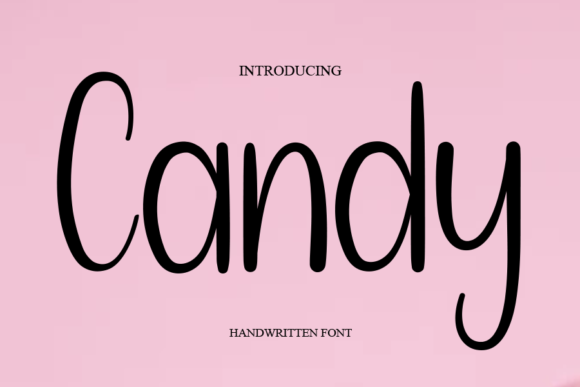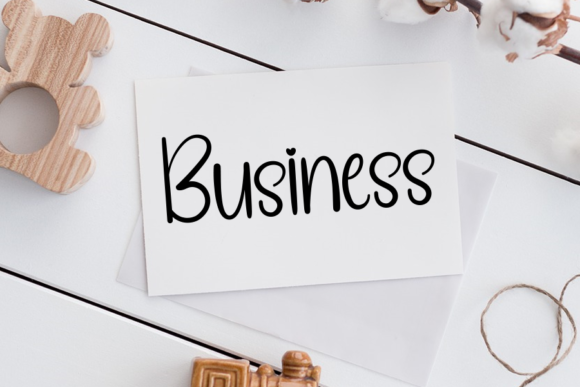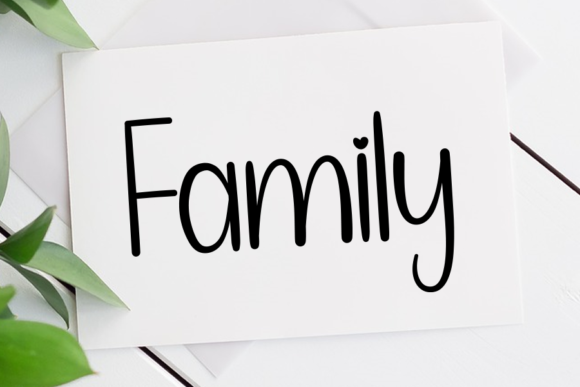
About Candy Font
Candy is a relaxed handwritten font that effortlessly blends a modern and whimsical style. This font is designed to immerse your designs into a fun and cool world, injecting a sense of playfulness and contemporary charm.
The relaxed nature of Candy is reflected in its handwritten style, which adds a personal and approachable touch to your designs. The modern elements seamlessly coexist with whimsical details, creating a unique and eye-catching aesthetic.
Use Candy to infuse your projects with a fun and cool vibe. Whether you’re working on social media graphics, branding, product packaging, or any design that requires a touch of modern whimsy, this font adds a playful element that engages and captivates your audience.
The versatility of Candy makes it suitable for a wide range of applications. Its casual yet stylish look allows it to adapt to various design contexts, ensuring that your projects stand out in a lighthearted and contemporary manner.
Let Candy be the key to transforming your designs into a world of fun and coolness. Whether it’s for branding, digital content, or creative projects, this font brings a modern whimsical charm that resonates with a vibrant and energetic atmosphere.